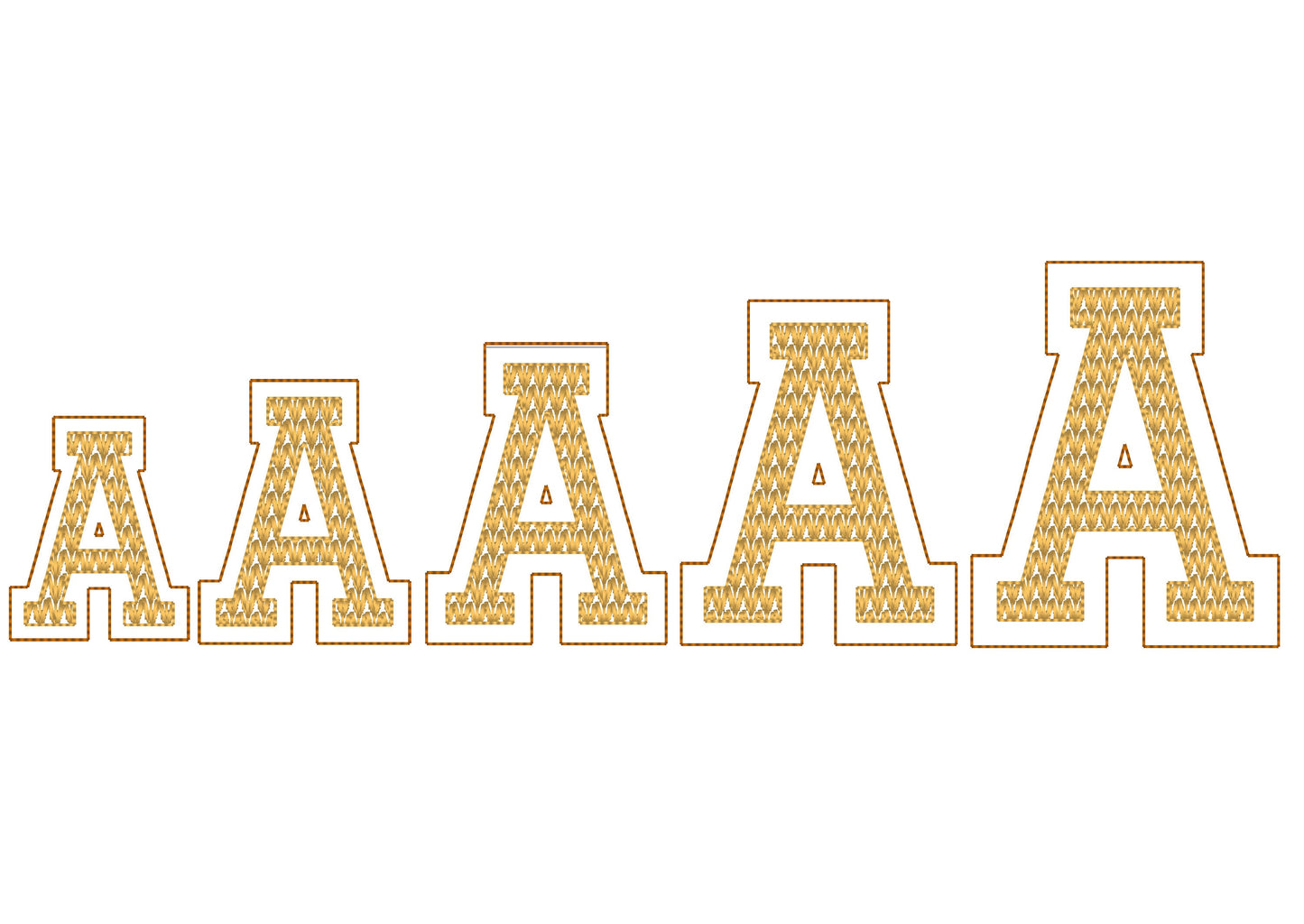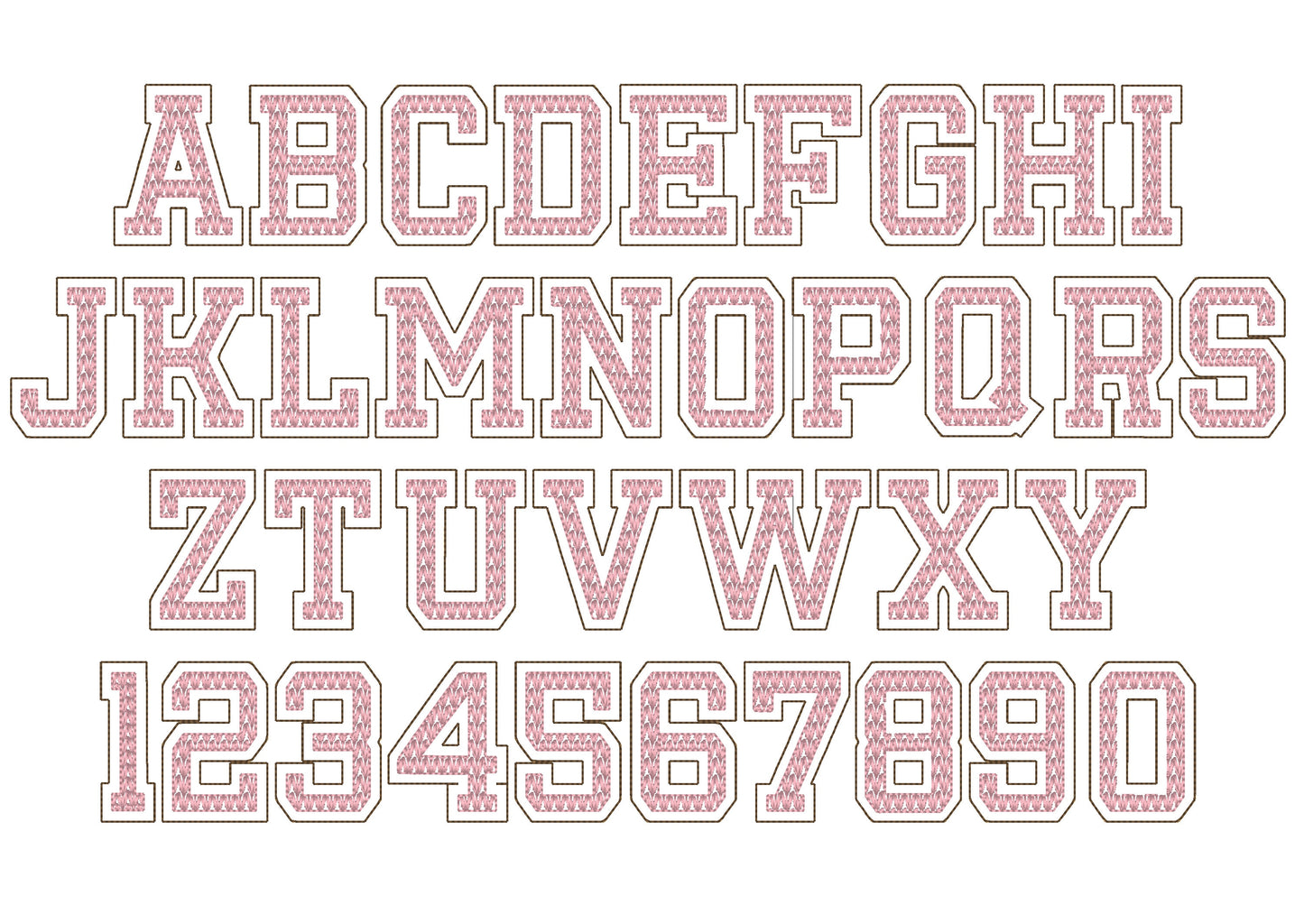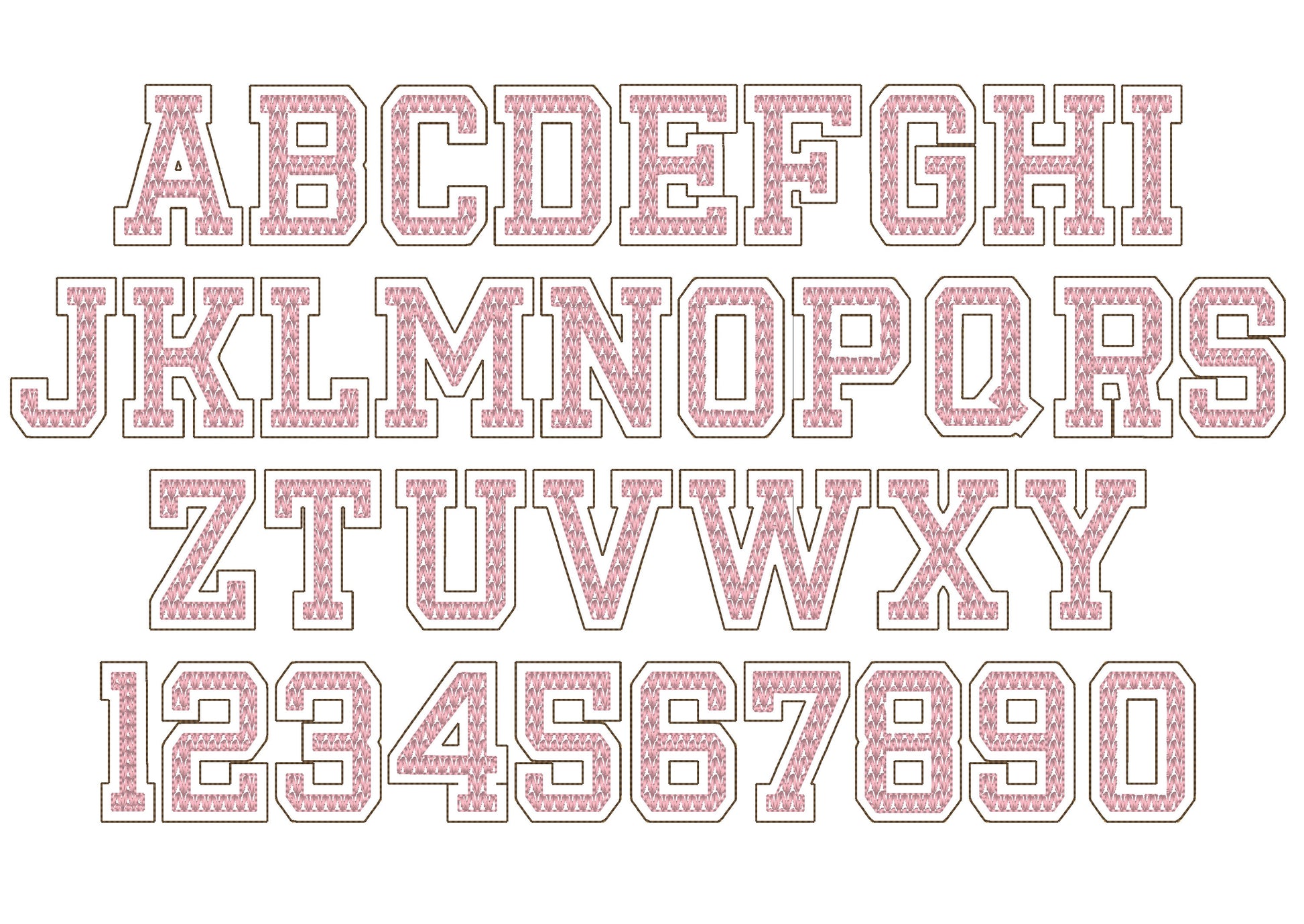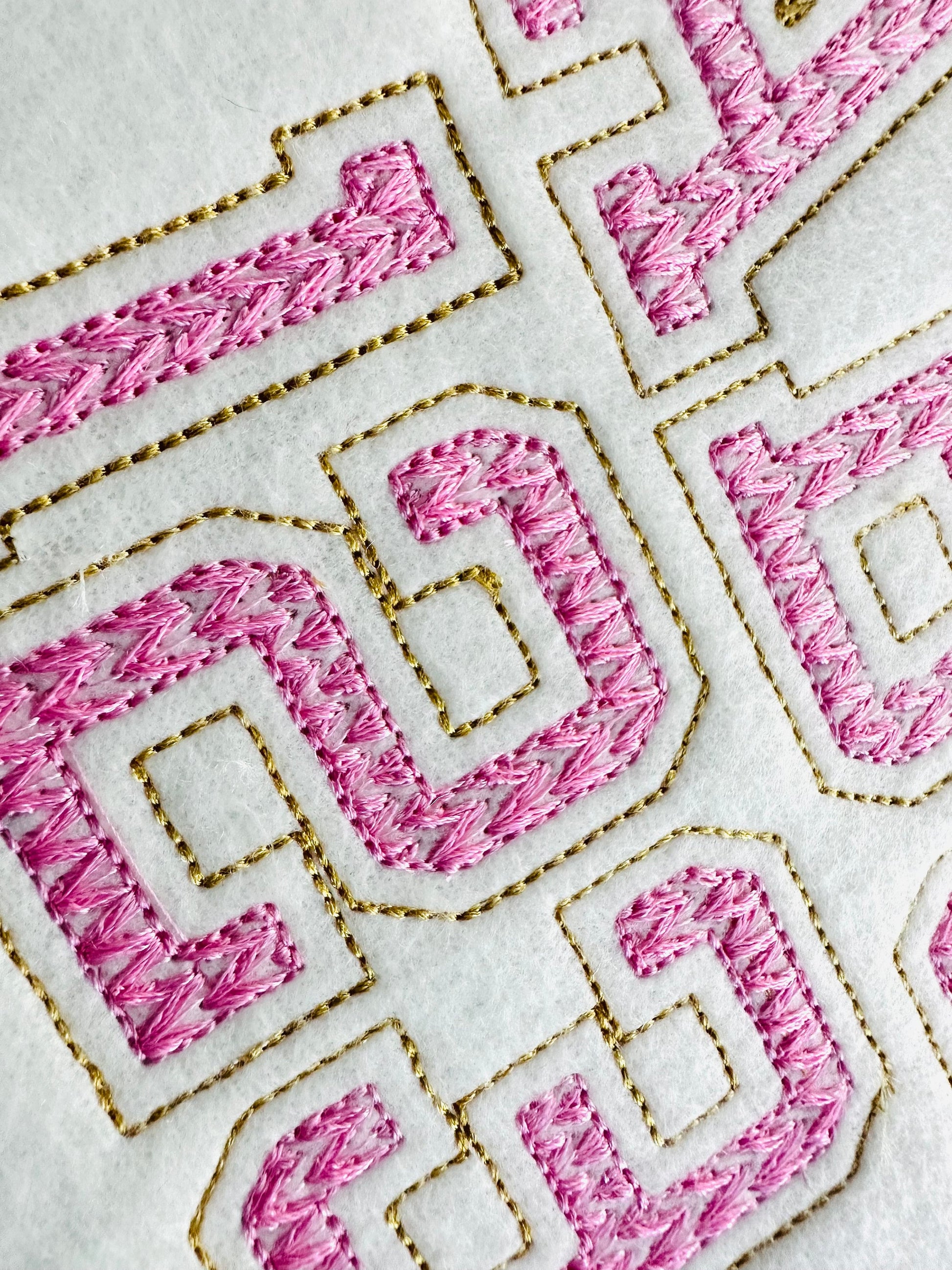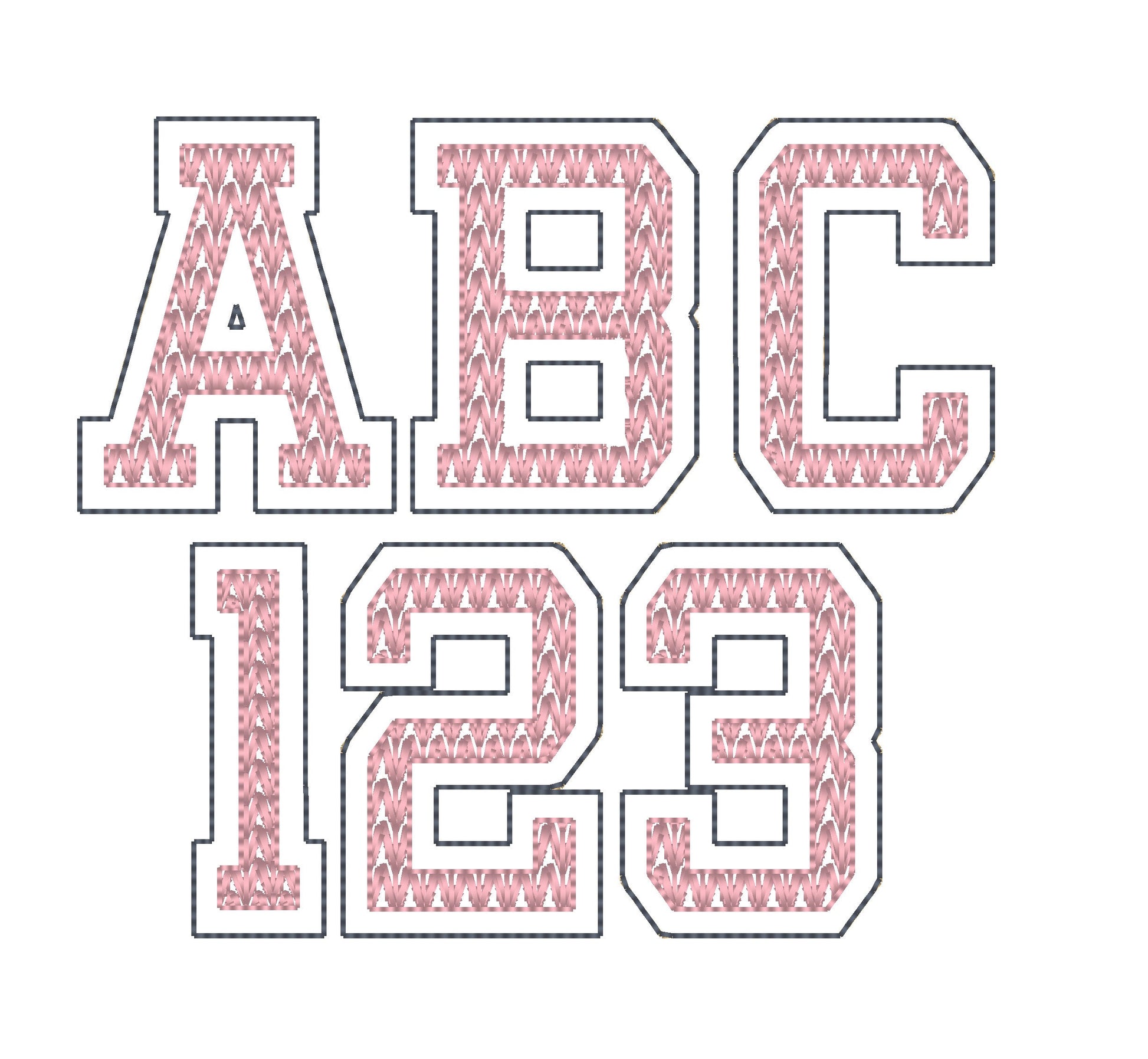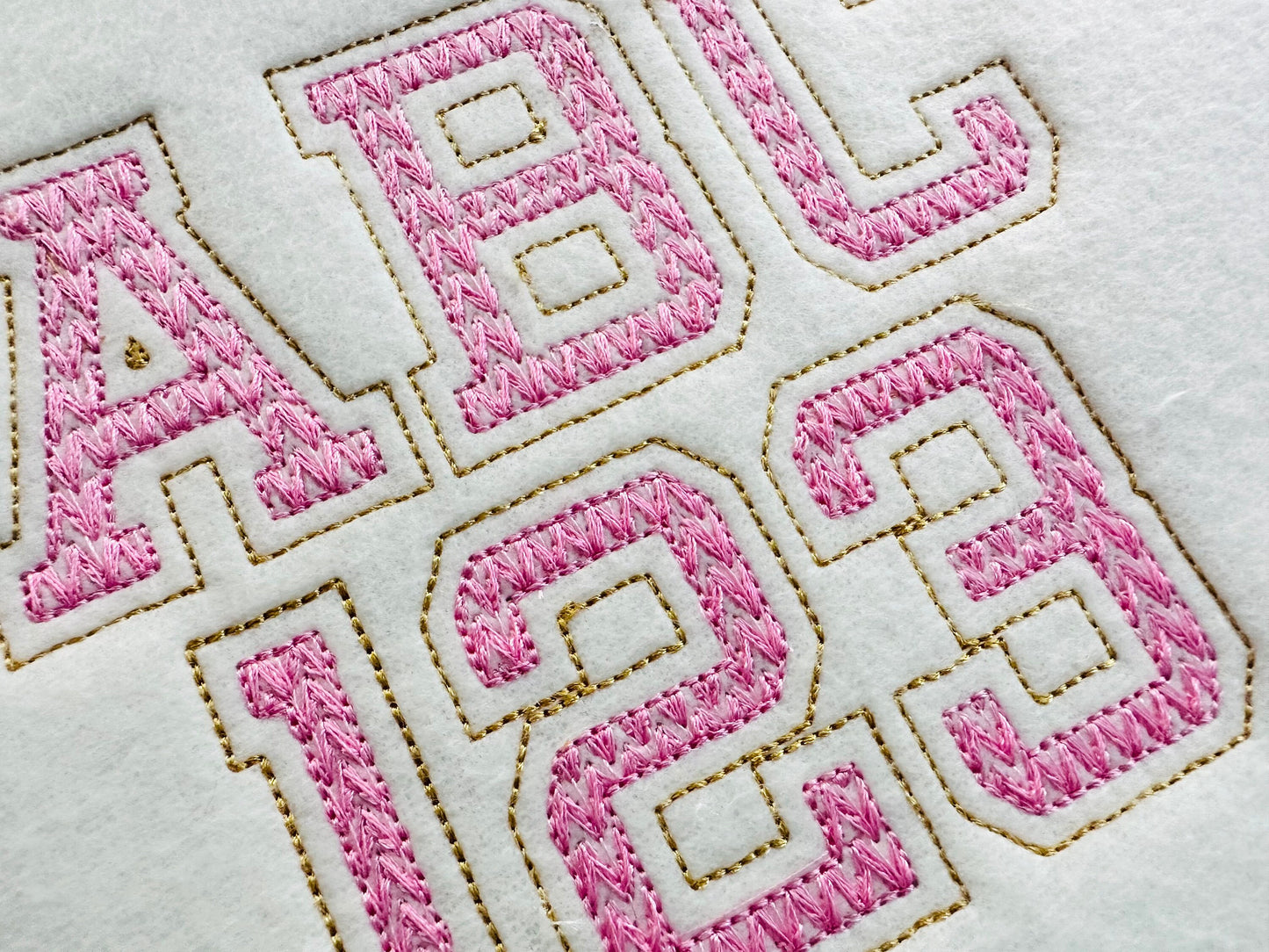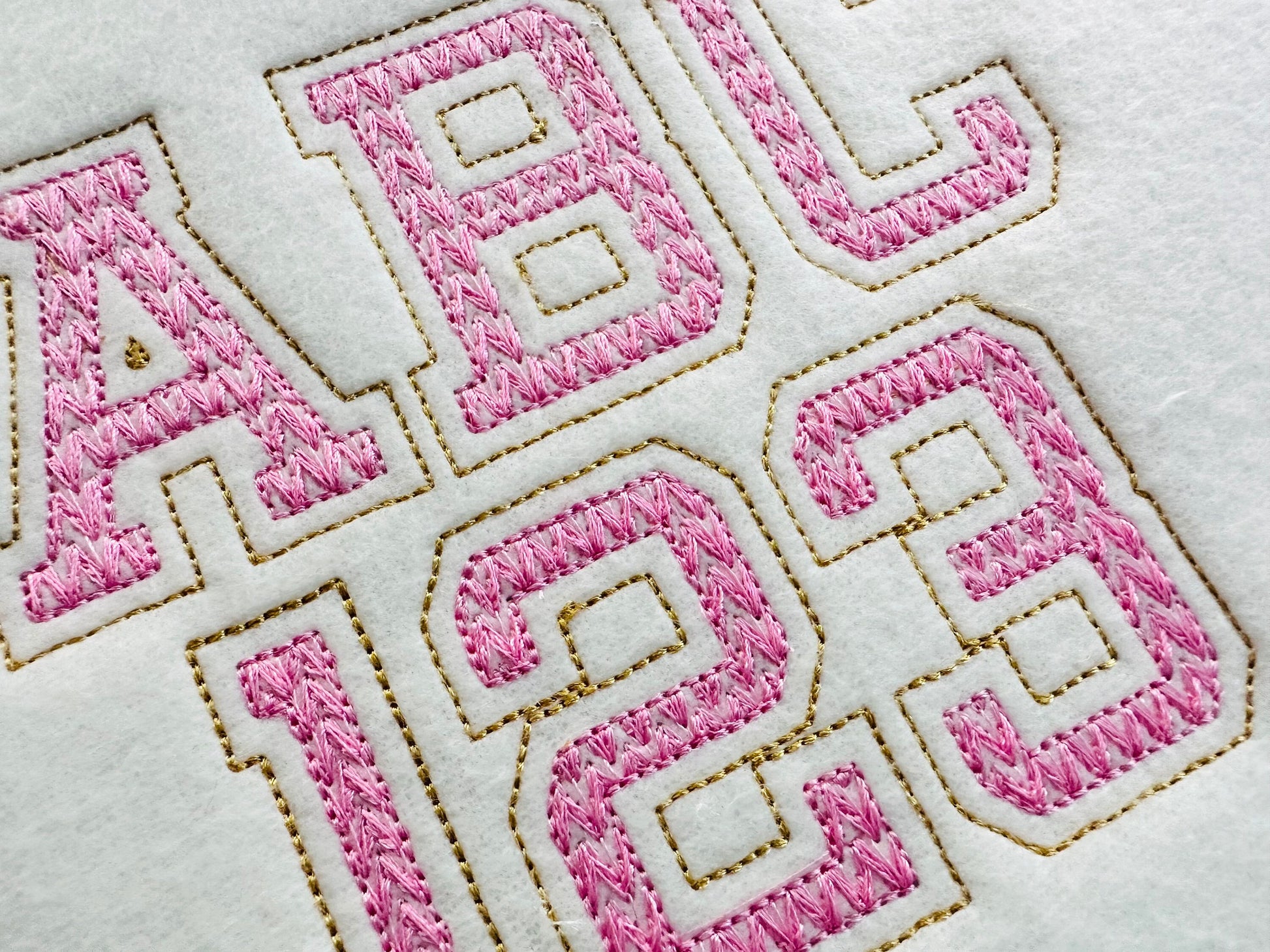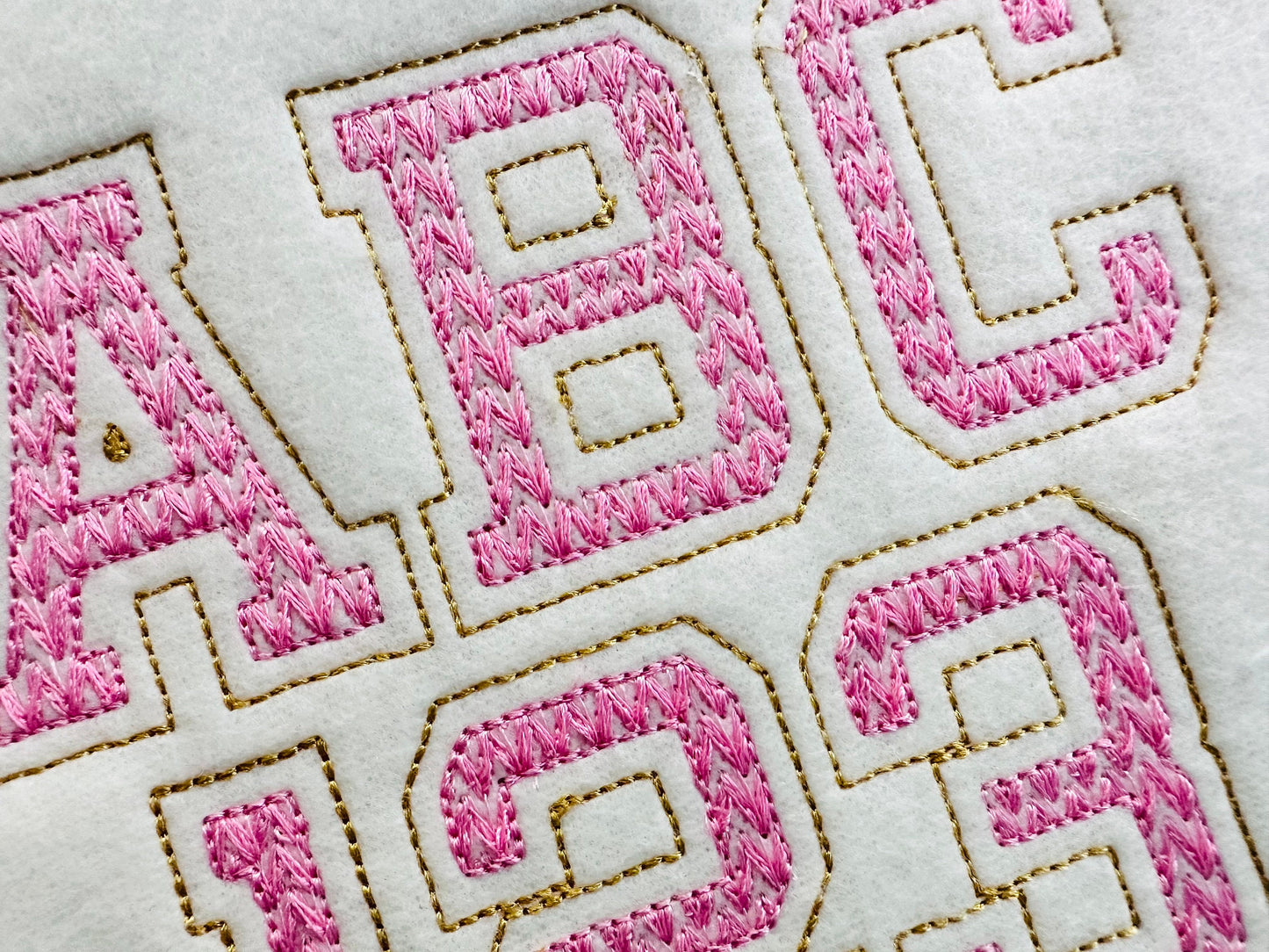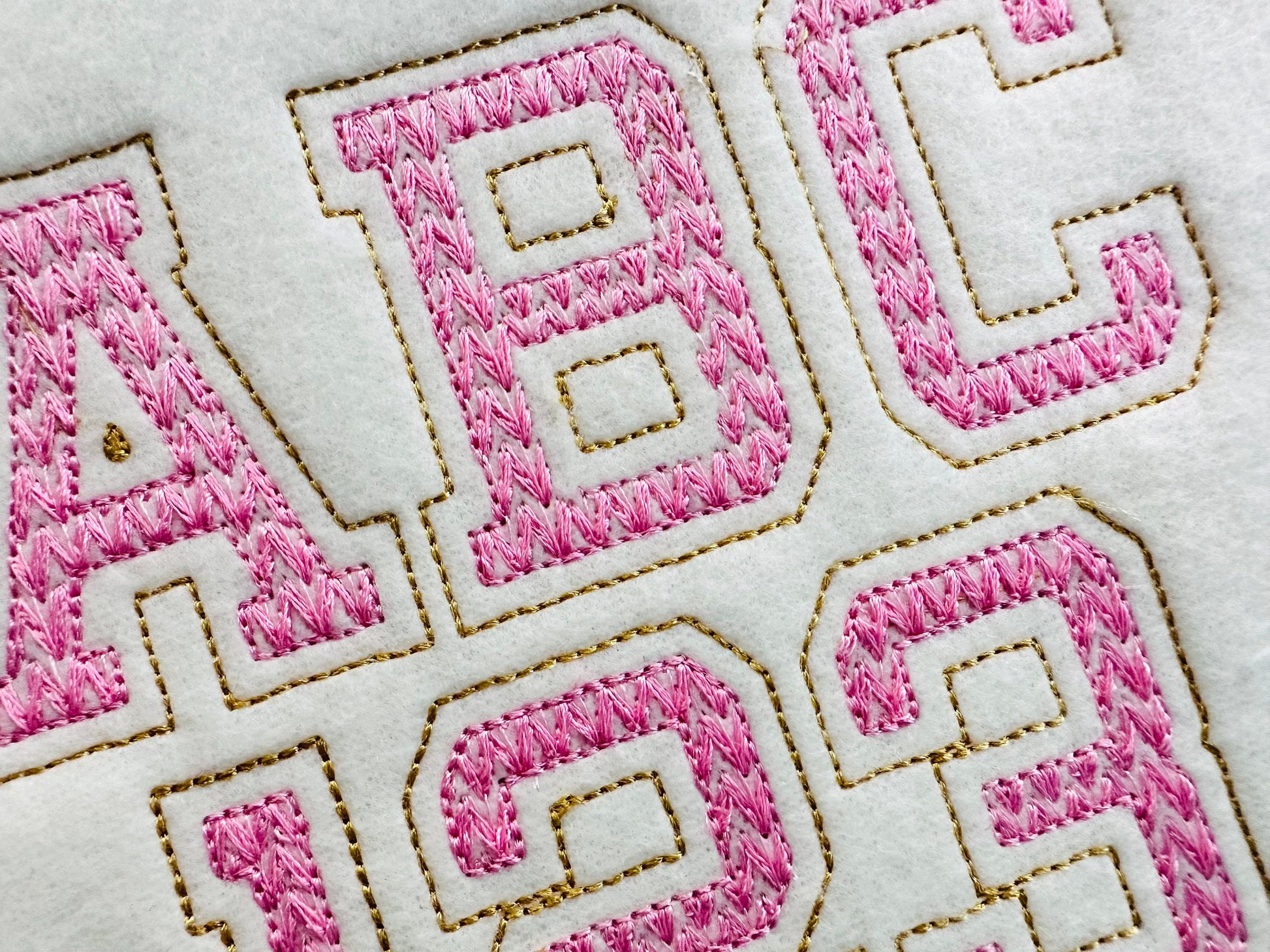
Or click to open the linkA varsity collegiate outline font with a knit sweater look in light stitch, for sporty names and numbers on sweaters and hats.
The knit stitch texture is part of the embroidery. Uppercase A to Z and numbers in five sizes: 2.2, 2.5, 3, 3.3 and 3.7 inches.